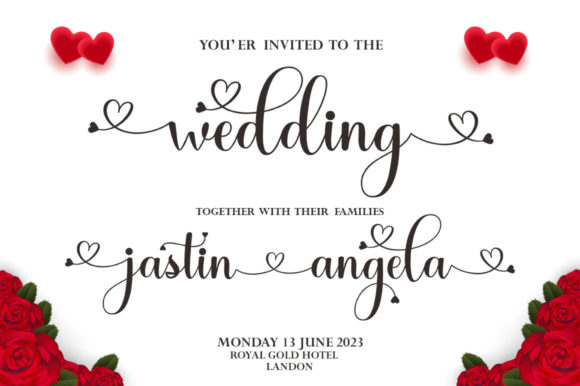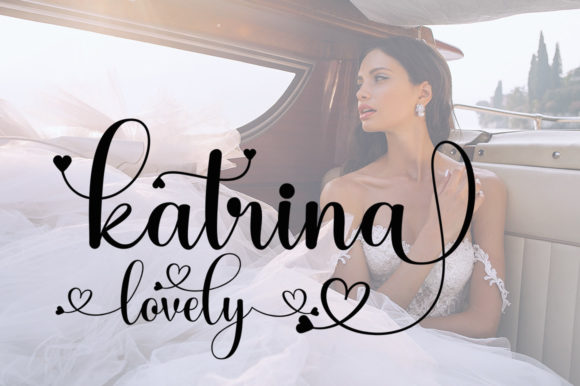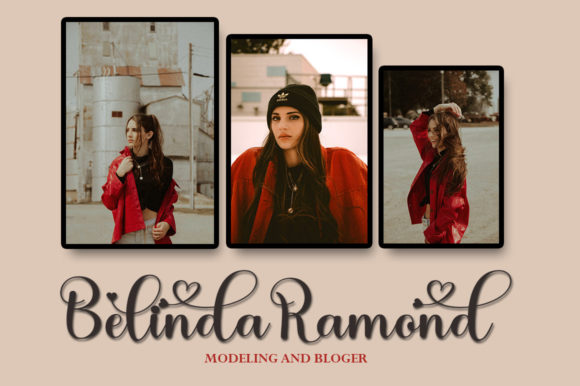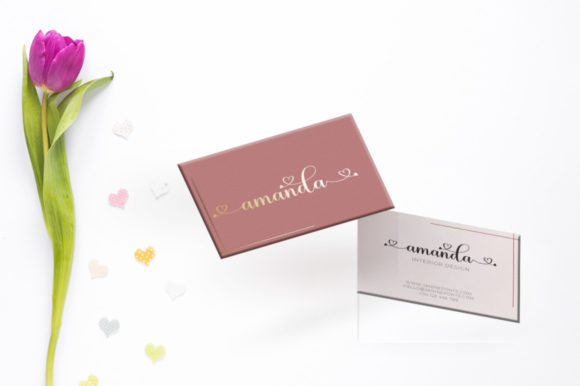
About Wakanda Script Font
Wakanda Script is a lovely script font featuring charming, playful characters that seem to dance along the baseline. This romantic font is PUA encoded which means you can access all of the glyphs and swashes with ease!